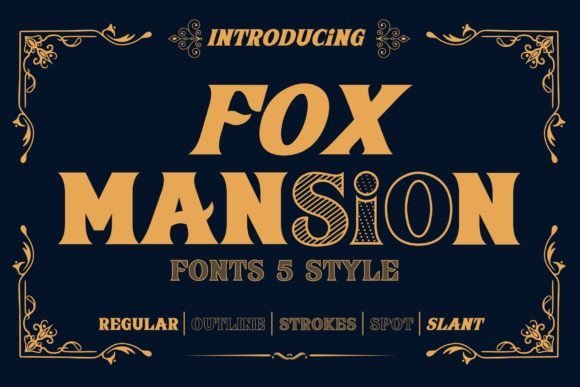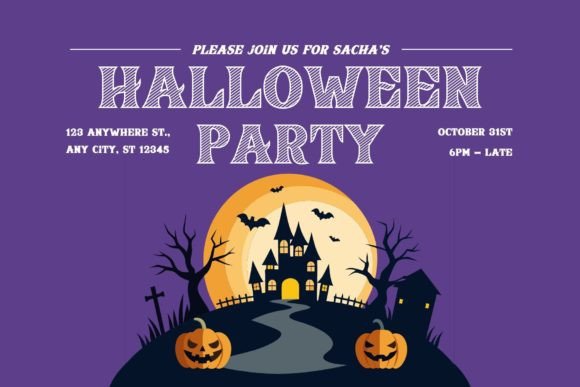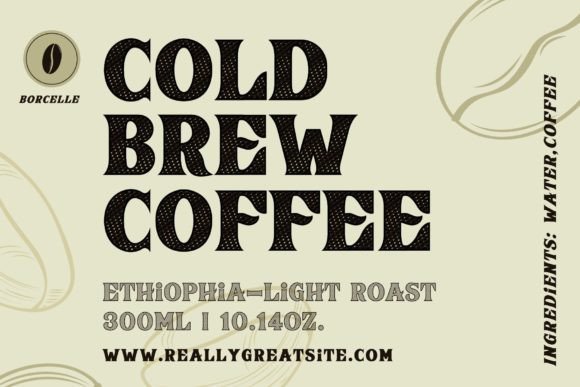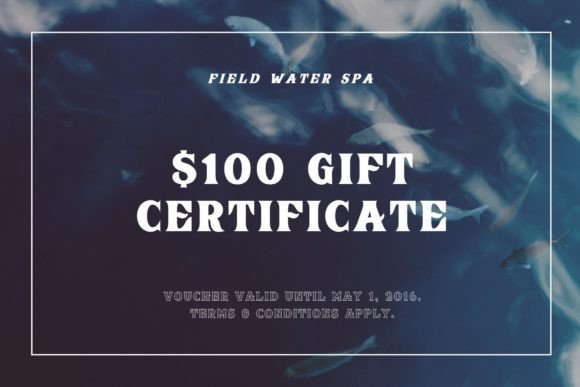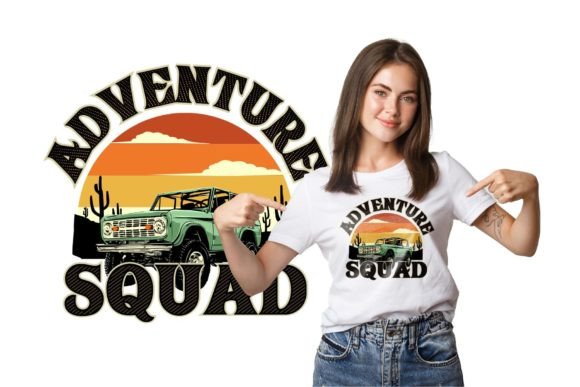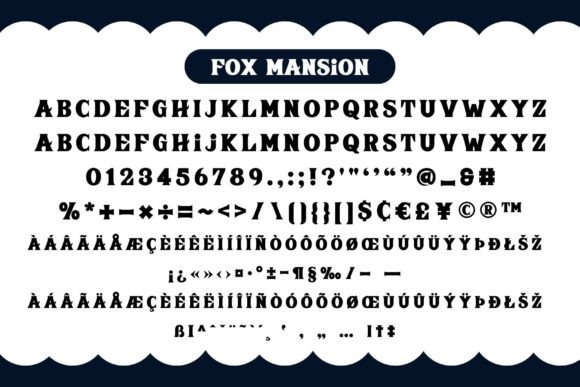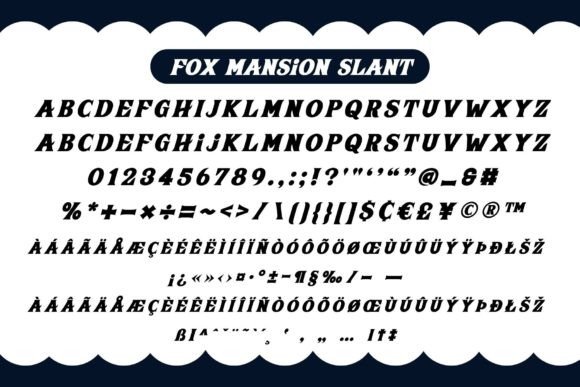
Do you ever find yourself staring at a blank canvas, waiting for the perfect font to strike inspiration? I know I do. As a designer, there’s nothing quite like the thrill of discovering a font that elevates your entire project. And that’s exactly what the Fox Mansion Font does – it brings your vision to life with its modern and beautiful styles.
The Fox Mansion Font is a versatile and multi-faceted tool that’s perfect for designers of all levels. With 5 stunning styles to choose from, you can effortlessly adapt it to fit both contemporary and vintage design aesthetics. Whether you’re creating a blog post, logo, advertisement, or invitation, the Fox Mansion Font is the perfect companion to help you achieve your creative goals.
Fox Mansion Font Key Features
- Font Family: Fox Mansion Font is a high-end serif font, ideal for luxury branding and premium content.
- Unique Characteristics: Fox Mansion Font features intricate details, elegant lines, and a sophisticated feel, making it perfect for high-end branding and design projects.
Designer Review: Fox Mansion Font
Overall, I’m impressed with the Fox Mansion Font. The font’s unique blend of elegance and playfulness makes it perfect for creating eye-catching designs.
- ✨ The font’s curves and lines are expertly crafted, creating a visually appealing and dynamic effect.
- ✨ The font’s versatility shines through, making it suitable for a wide range of design projects, from luxury branding to modern signage.
- ✨ The font’s OpenType features allow for a high degree of customization, making it a joy to work with.
- ⚠️ The font may not be ideal for small text sizes, as some of the characters can become difficult to read.
- ⚠️ The font’s weight and width options may not be as comprehensive as some other fonts in the same category.
I think the Fox Mansion Font is a solid addition to any designer’s toolkit. Its unique aesthetic and versatility make it a great choice for a wide range of design projects. While it may have some limitations, I believe the font’s benefits far outweigh its drawbacks.
Tips for Getting the Most Out of Fox Mansion Font
Use the Fox Mansion Font for headings, titles, and short paragraphs to add a touch of elegance to your designs.
Experiment with different font sizes and styles to create visual hierarchy and emphasis.
Combine the Fox Mansion Font with other fonts to create a unique and eye-catching design.
The Fox Mansion Font is ideal for:
Magazine and newspaper headlines
Business cards and brochures
Alternatives to Fox Mansion Font
Great Vibes Font is a modern, elegant script font that works well for titles, headings, and body text. It’s perfect for designers who want a unique and stylish font without the ornate details of Fox Mansion Font. Great Vibes Font is more minimalist and clean, making it ideal for digital designs, magazines, and websites.
Comparison to Fox Mansion Font: While Fox Mansion Font has a more classic and vintage feel, Great Vibes Font is more modern and sleek. Great Vibes Font is also more versatile and can be used for a wide range of designs, from formal to casual.
Carolyna Pro Font is a high-end, elegant serif font that’s perfect for luxury brands, fashion designers, and high-end publications. It’s a great alternative to Fox Mansion Font for designers who want a sophisticated and refined font. Carolyna Pro Font is more elegant and refined, making it ideal for designers who want to create a sense of luxury and exclusivity.